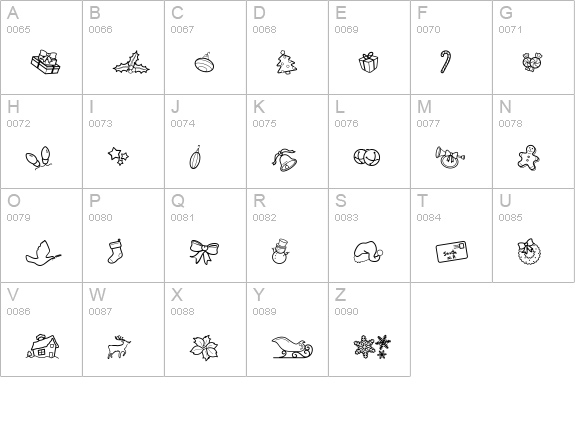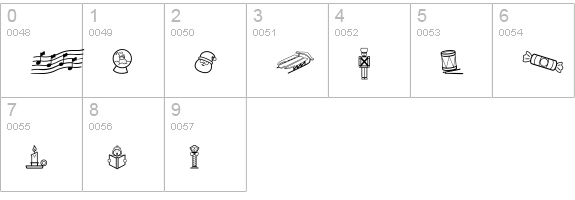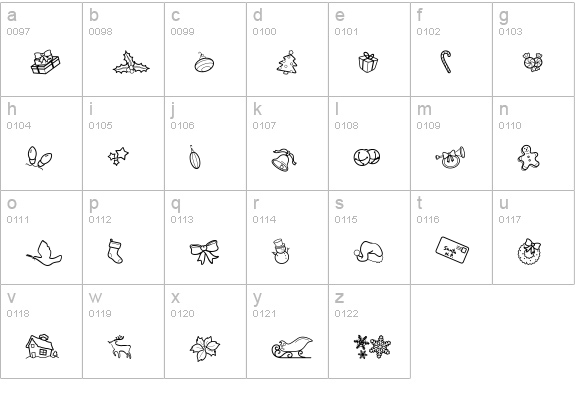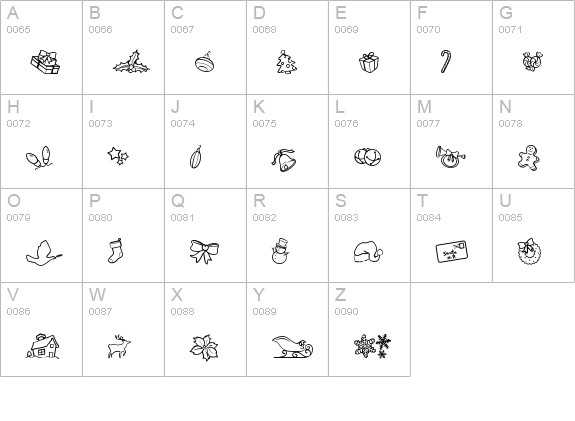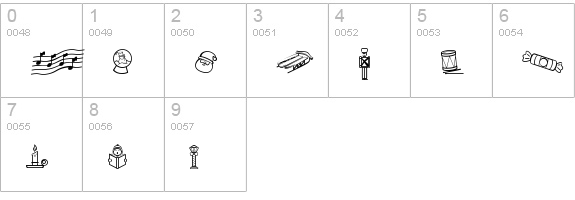
CK Holiday Symbols Font Details
Introducing CK Holiday Symbols font, a whimsical and festive typeface perfect for adding a touch of holiday cheer to your projects. This delightful font features a variety of charming holiday-themed symbols such as snowflakes, ornaments, and presents, making it ideal for creating greeting cards, invitations, and more. With its playful design and versatile use, CK Holiday Symbols font is sure to bring joy to your designs. Best of all, CK Holiday Symbols font is completely free to download at FontsMarket.com. Simply visit the website to add this cheerful font to your collection and start spreading holiday spirit with every letter you type. Don't miss out on this fantastic opportunity to enhance your designs with the delightful CK Holiday Symbols font - download it today and let your creativity shine!